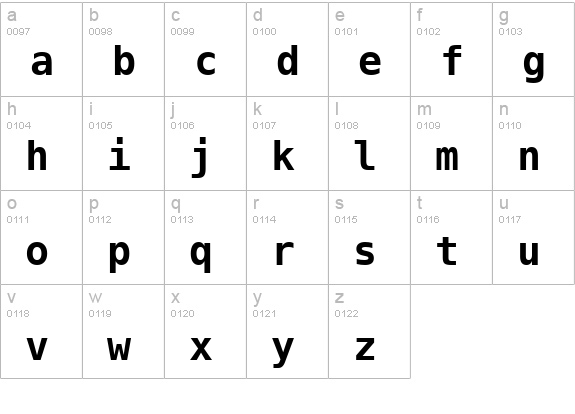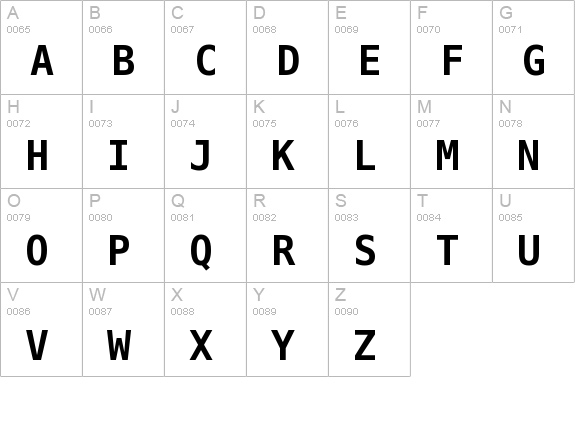
Bitstream Vera Sans Mono Bold is a strong, high-contrast variant in the Bitstream typeface family \xE2\x80\x94 well suited to headlines, attention-grabbing titles, and strong calls-to-action.
Bitstream Vera Sans Mono Bold is a sleek and modern monospaced font that exudes confidence and readability. Its bold weight adds a touch of emphasis and strength to any text, making it perfect for coding, programming, or any situation where clarity is key. The clean lines and distinct letterforms of this typeface make it easy on the eyes, while still maintaining a professional and polished appearance. What sets Bitstream Vera Sans Mono Bold apart is that it is not only a high-quality font, but it is also free to download. You can easily access this versatile typeface at FontsMarket.com, where you can enjoy the benefits of using a premium font without any cost. Whether you are working on a personal project or a professional endeavor, Bitstream Vera Sans Mono Bold is a reliable choice that will elevate your design and communication efforts.